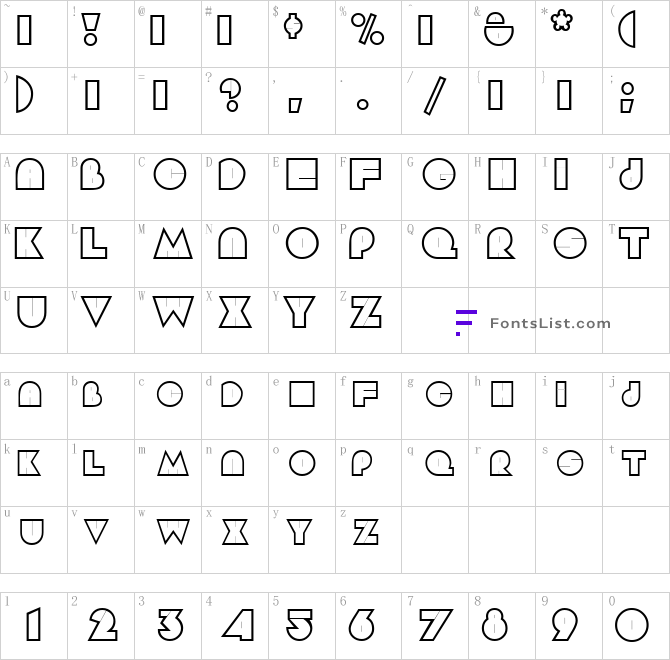
ArgotDisplayCapsSSi.ttf is a very beautiful artistic font, ArgotDisplayCapsSSi.ttf is widely used in the design and printing of various books and pictures,ArgotDisplayCapsSSi.ttf has a strong visual impact,ArgotDisplayCapsSSi.ttf is a commonly used font in newspapers, magazines and books, and is used in posters, e-commerce Poster design, store design, logo design, font design and other fields.ArgotDisplayCapsSSi.